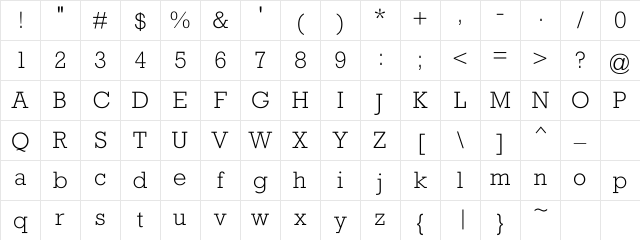
MemRockwell-Light Regular
Design Context for MemRockwell-Light
MemRockwell-Light is a composed and adaptable typeface that performs quietly and consistently across a wide range of design contexts. Its slender proportions lend an understated elegance to any composition.